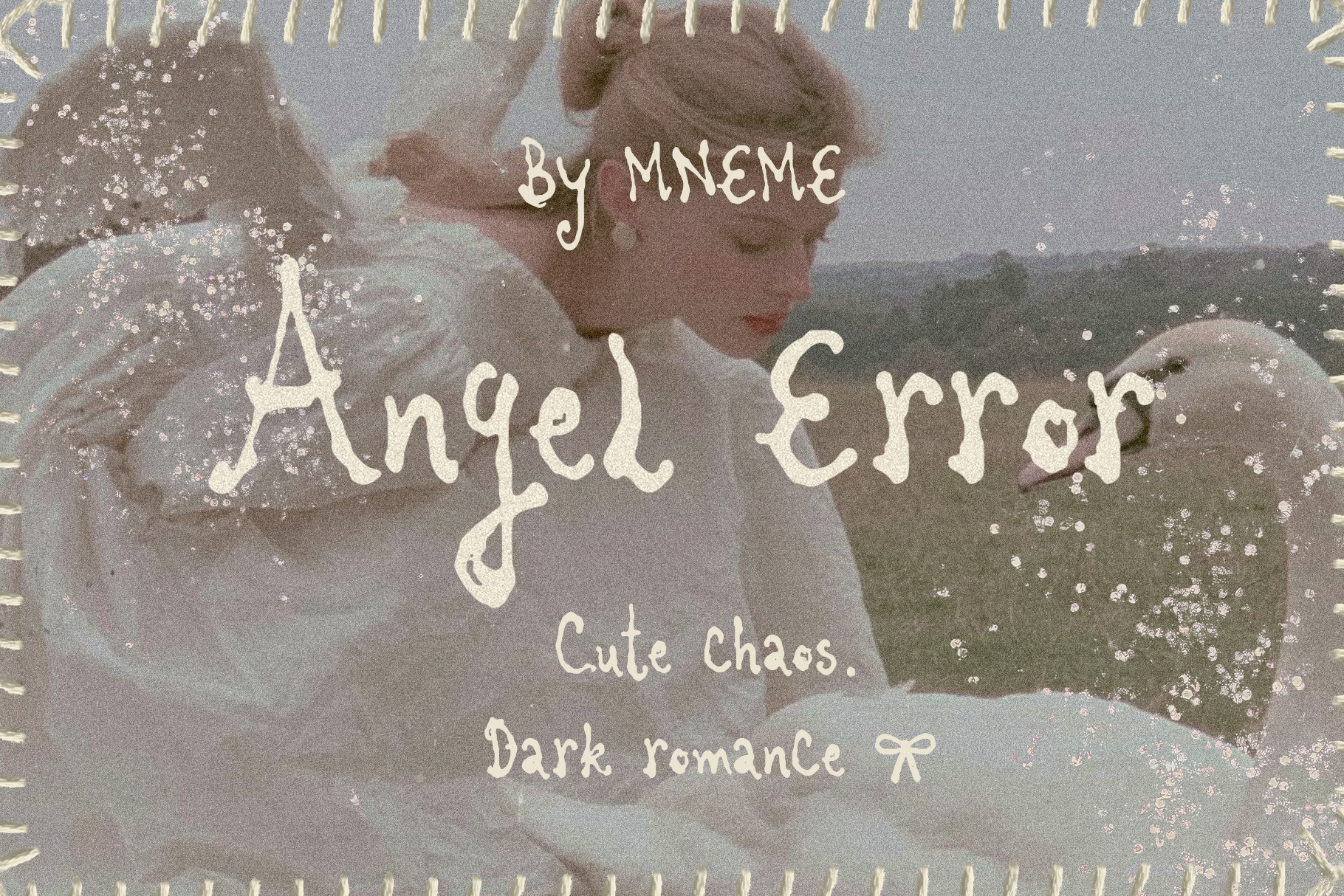
Angel Error: Handwritten Font
Angel Error is a dreamy handwritten display font inspired by dark romance, angelcore nostalgia, emotional poetry, vintage diaries, and indie internet aesthetics.
With its imperfect handcrafted letterforms and delicate personality, Angel Error captures the feeling of forgotten messages, late-night thoughts, and beautiful digital melancholy.
• Album covers • Editorial design • Fashion branding • Book covers • Poetry projects • Posters • Social media graphics • Scrapbooking • Packaging design • Creative merchandise
The font combines innocence and chaos, making it ideal for dreamcore, coquette, angelcore, indie and dark romantic visual identities.